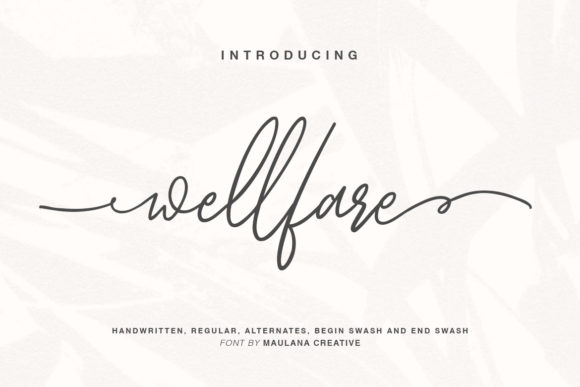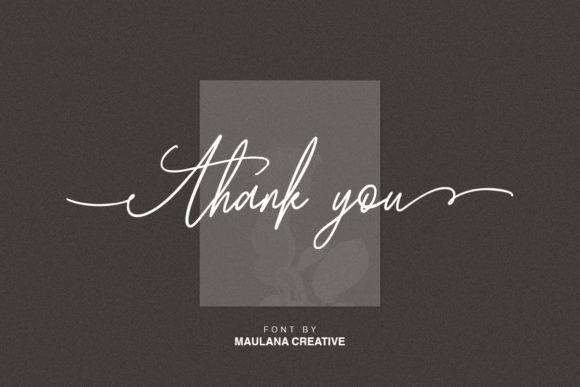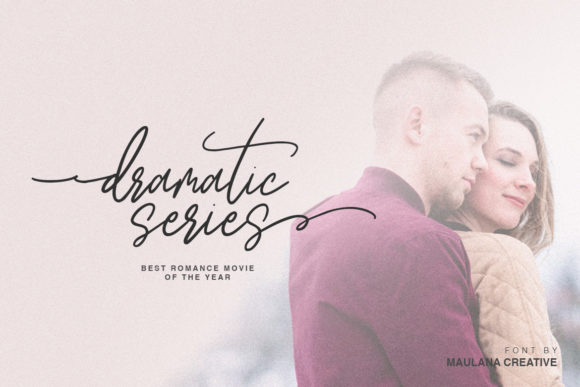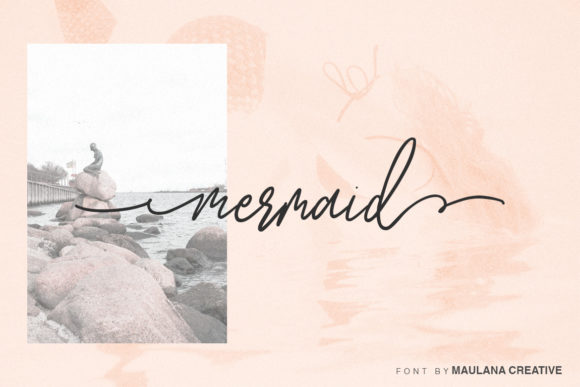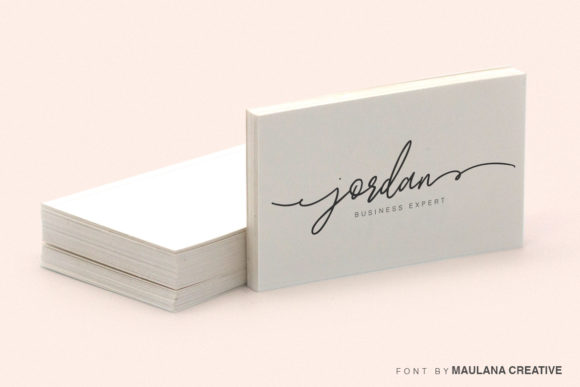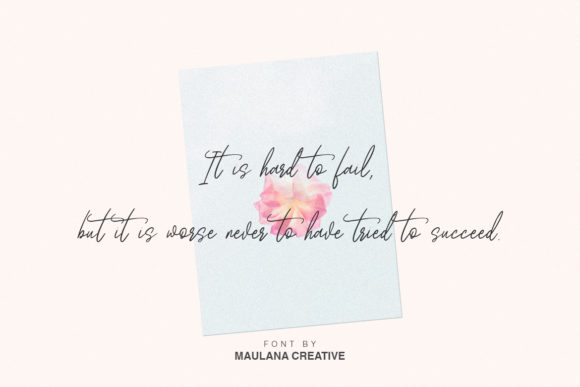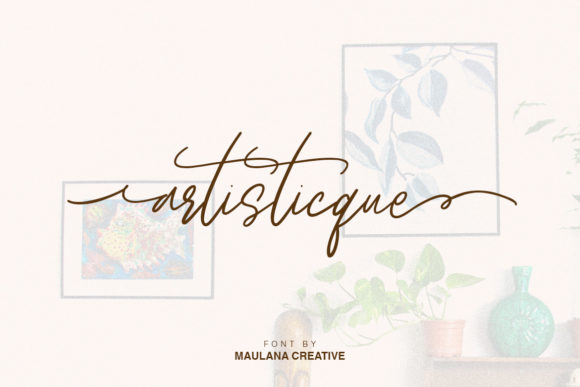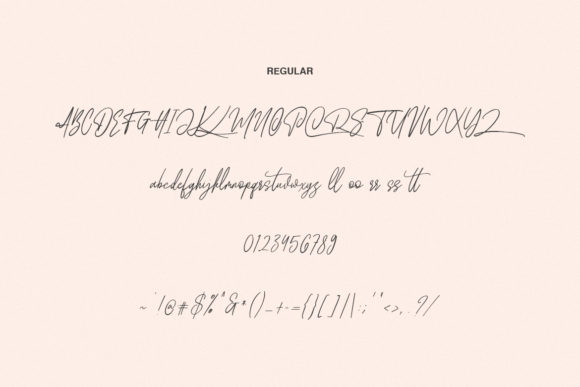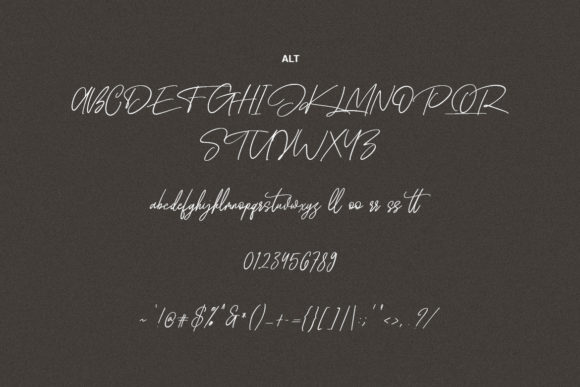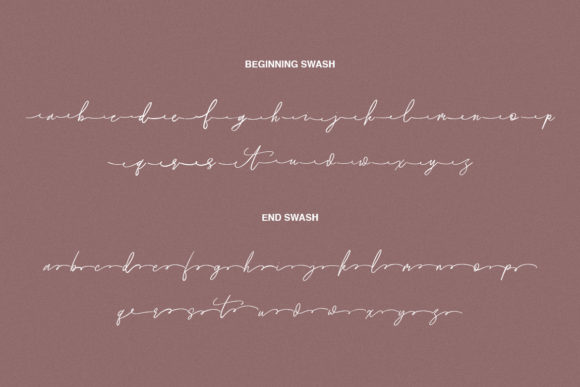
Wellfare Font
About Wellfare Font
Wellfare feels fashionable and modern, making it a sweet and charming script for a big range of crafting ideas. Get inspired by its unique swashes!